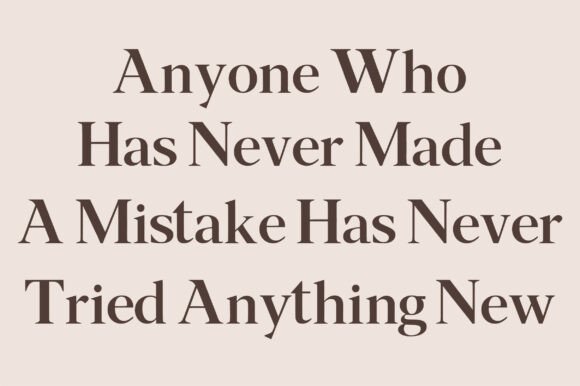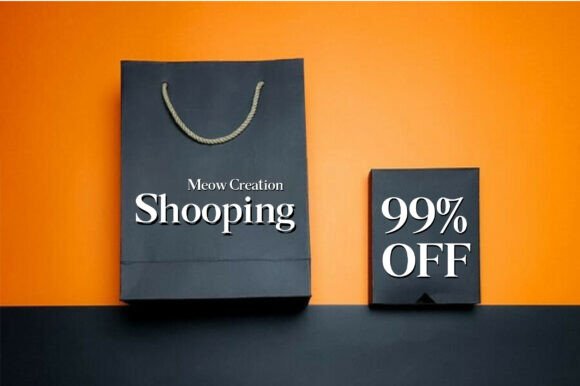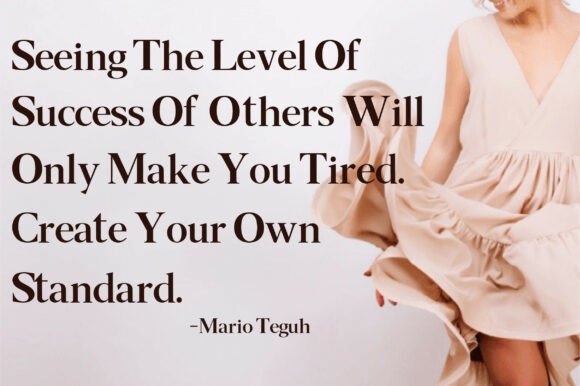
Introduction to Lioris Font
LIORIS is a refined serif typeface that blends classic elegance with modern sophistication.
Featuring balanced proportions, smooth bracketed serifs, and strong contrast, it’s perfect for branding, logos, fashion, editorial layouts, packaging, and stylish quotes Timeless, clean, and confidently elegant.
Key Features of Lioris Font
Why Choose Lioris Font?